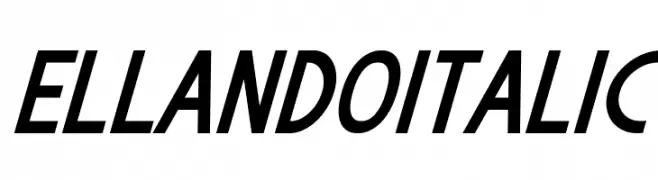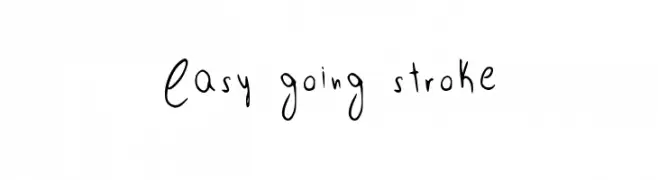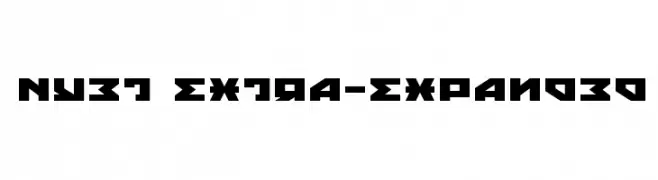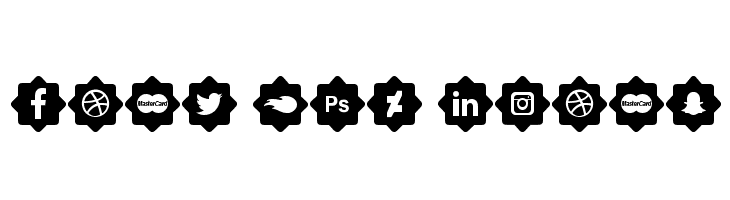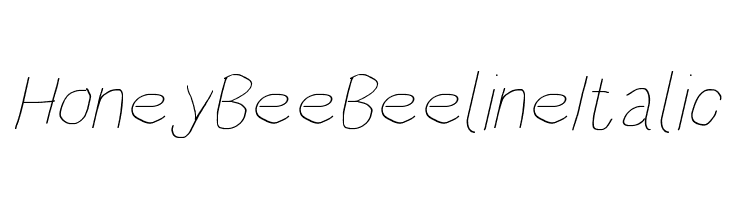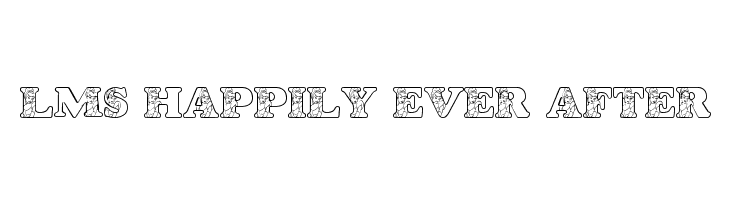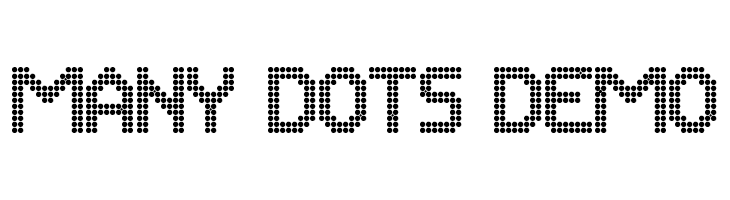
( weknow - Wino S Kadir - www.creativefabrica.com/designer/weknow/ )
A bold, geometric font with a futuristic and energetic style.
A sleek, italicized font with a modern and dynamic style.
( Insane Machina - Fernando Henrique de Sousa - www.insanemachina.com )
A playful, casual handwritten font with irregular strokes and a whimsical style.
A bold, geometric font with sharp angles and a futuristic style.
A bold, italic handwritten font with a signature-like elegance.
( Jazmin Alejandra )
A playful and whimsical font with unique, hand-drawn letterforms.
A bold, slanted font with a dynamic and modern style.
A playful, hand-drawn font with whimsical, cartoonish elements.
A futuristic, geometric font with thin outlines and angular shapes.